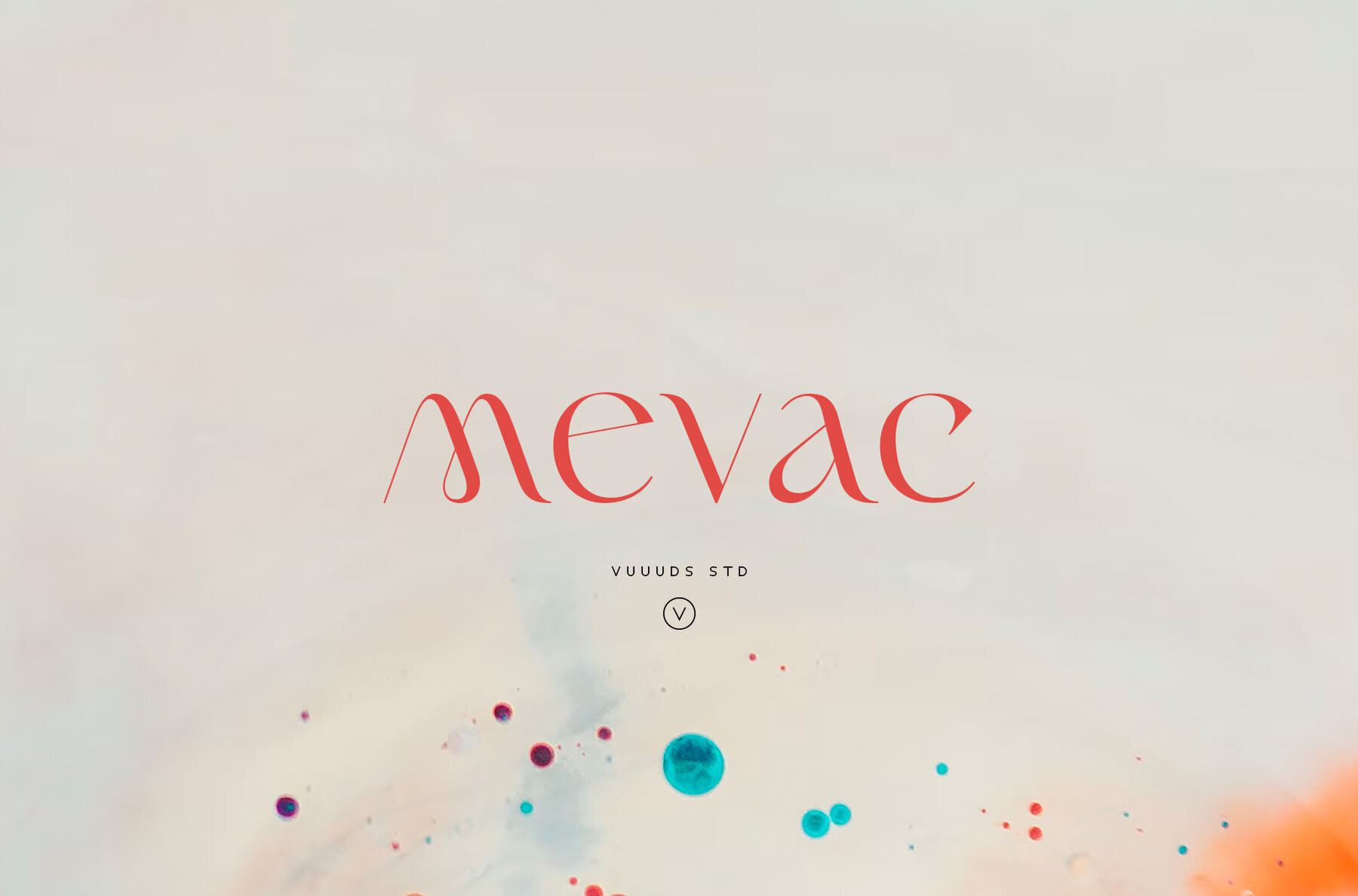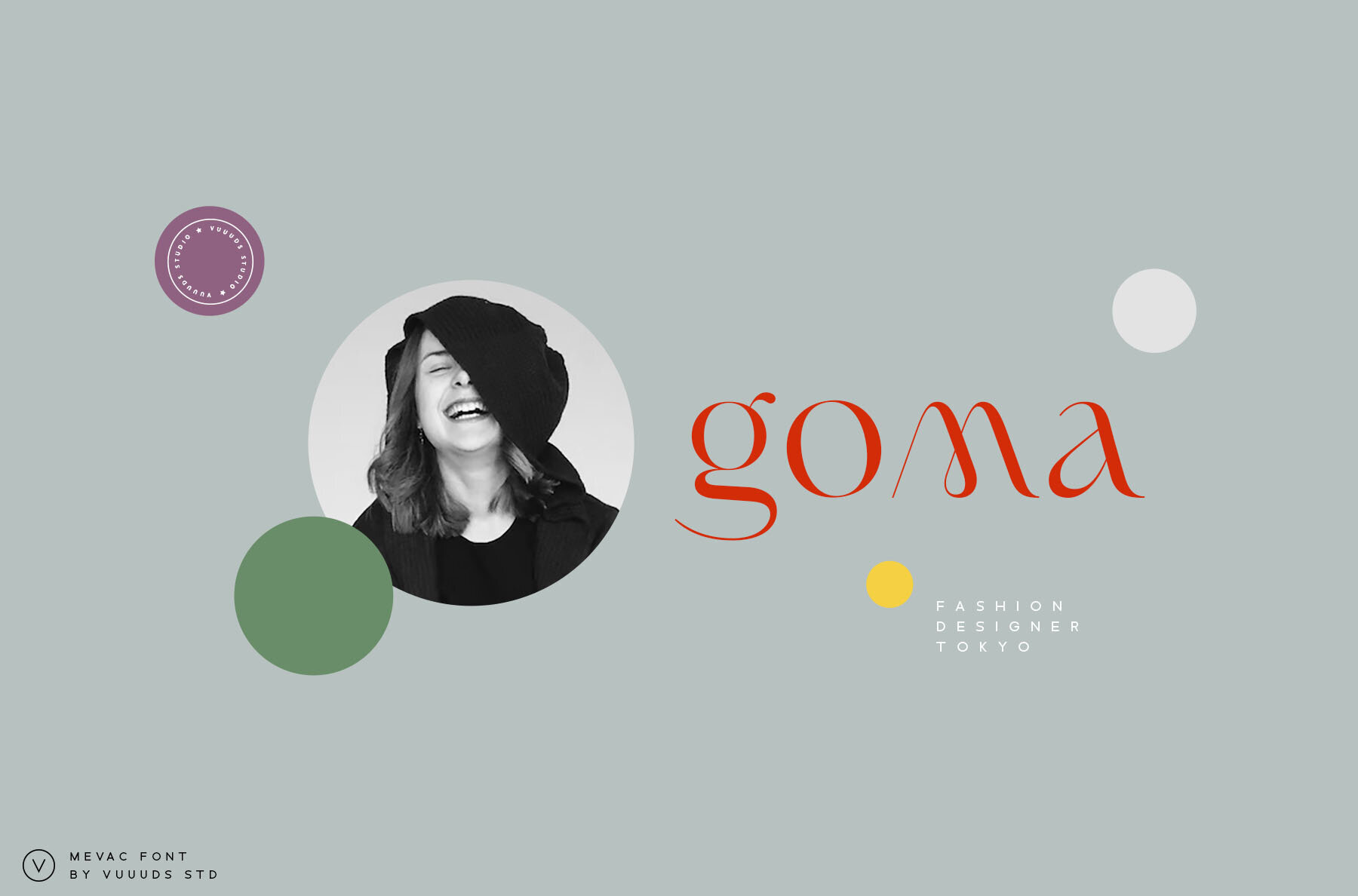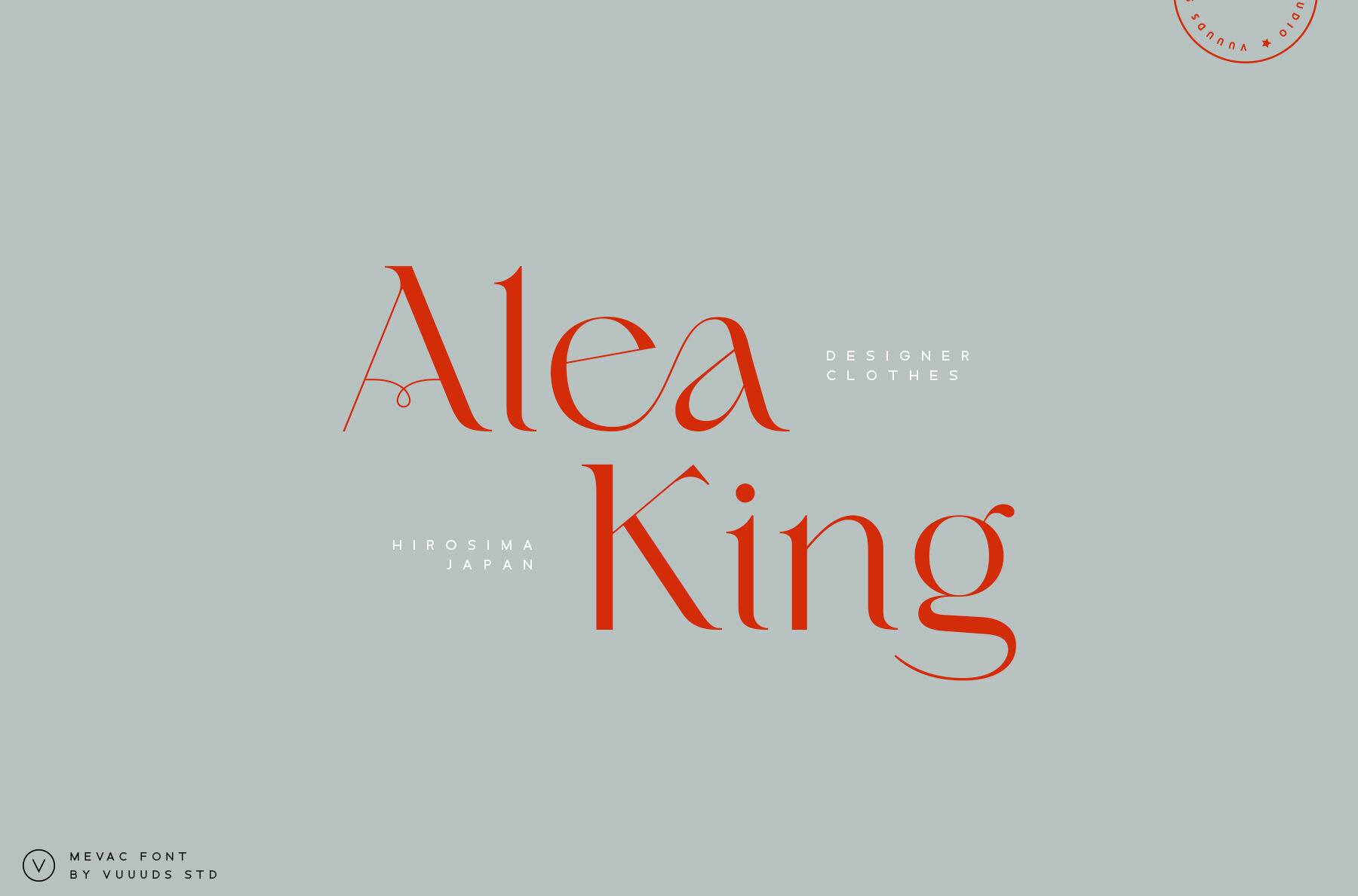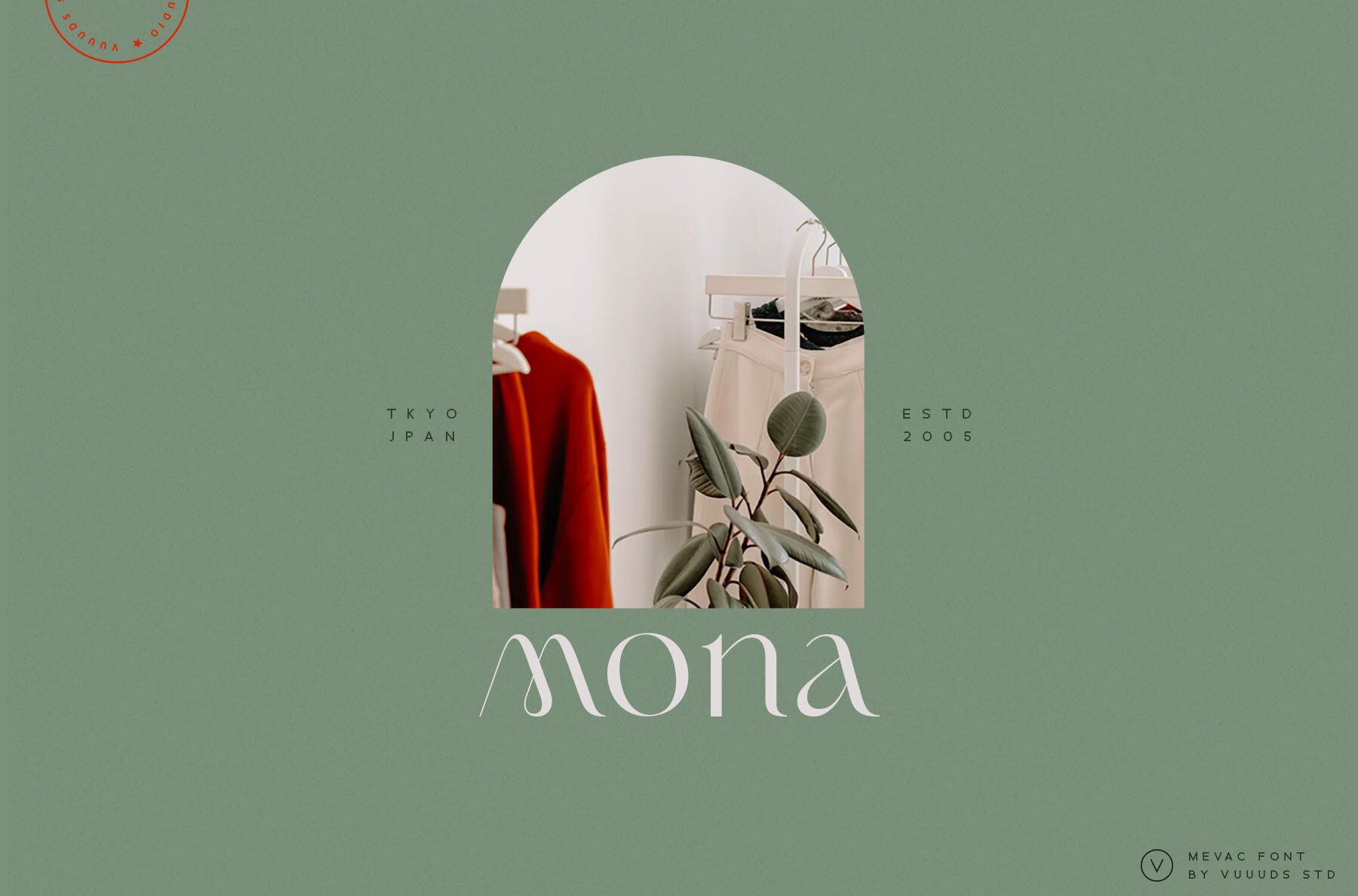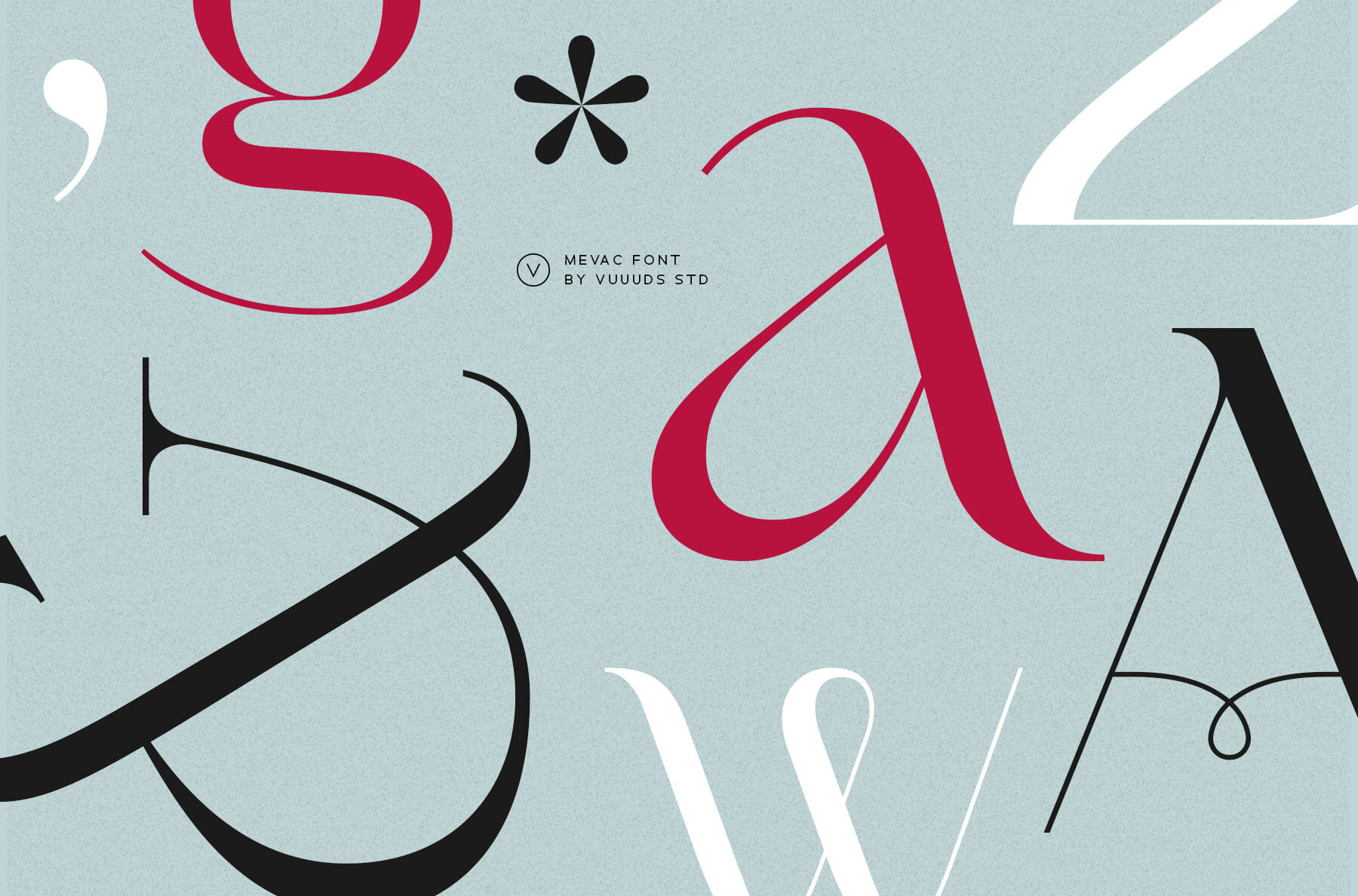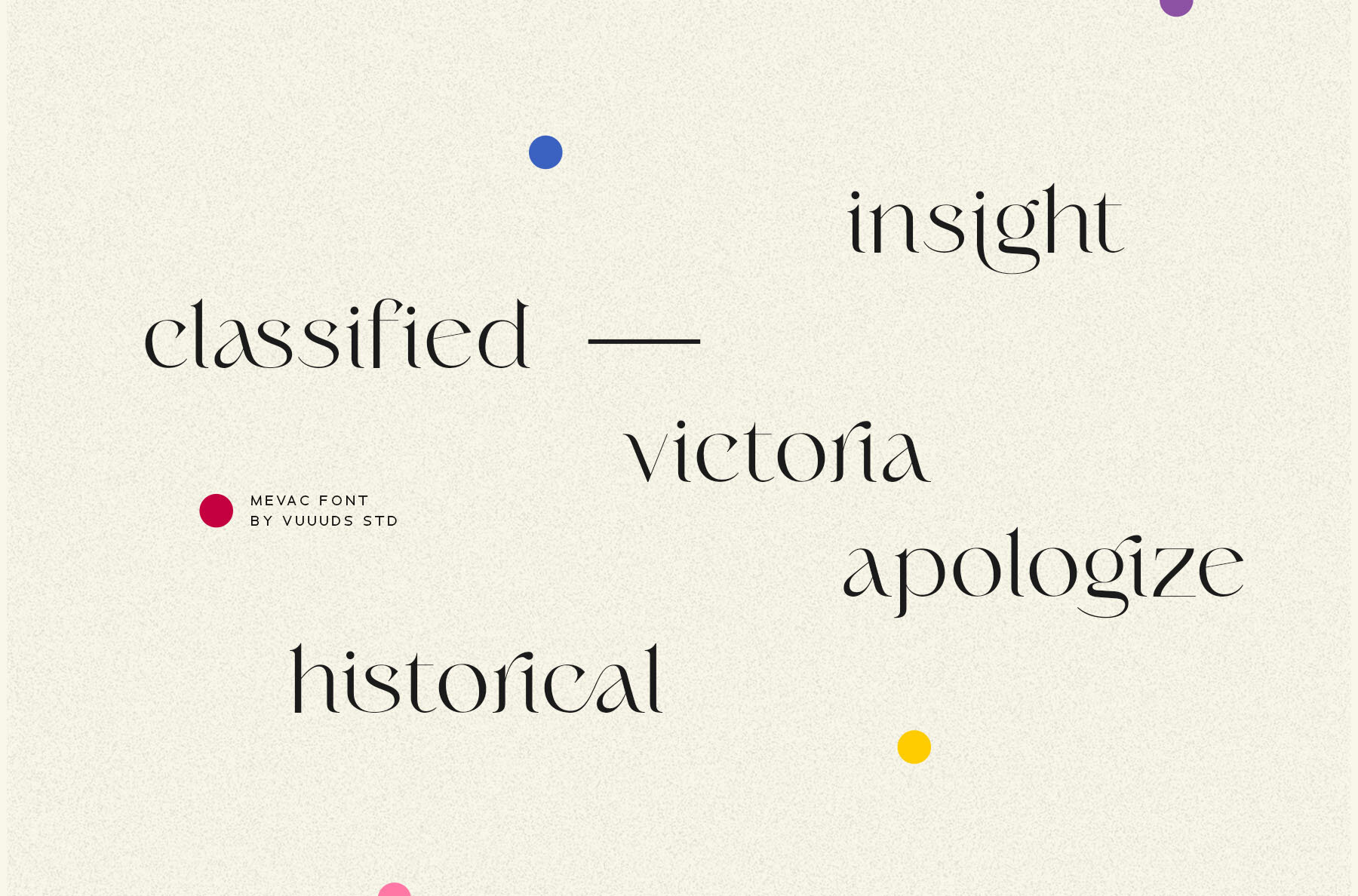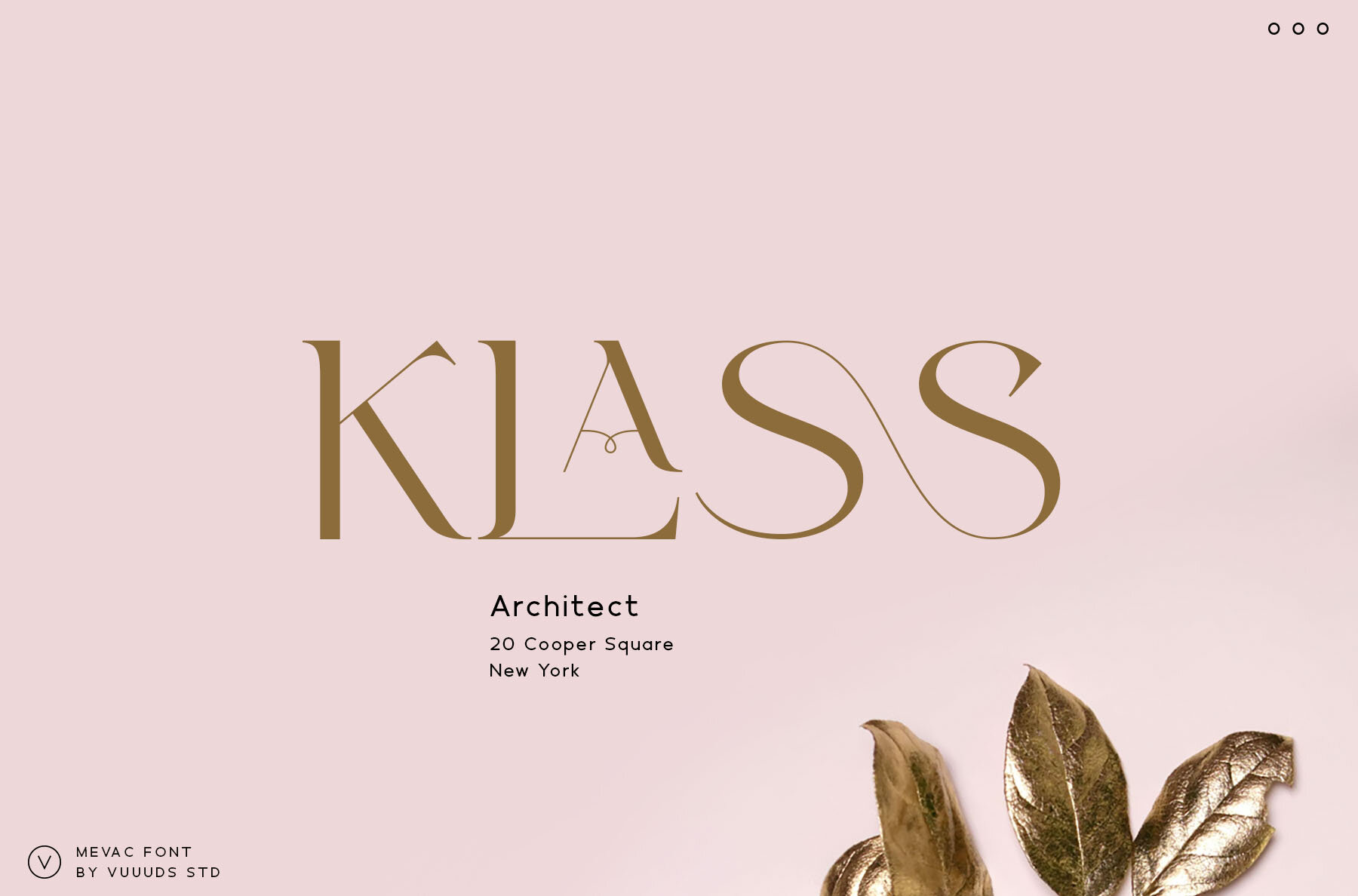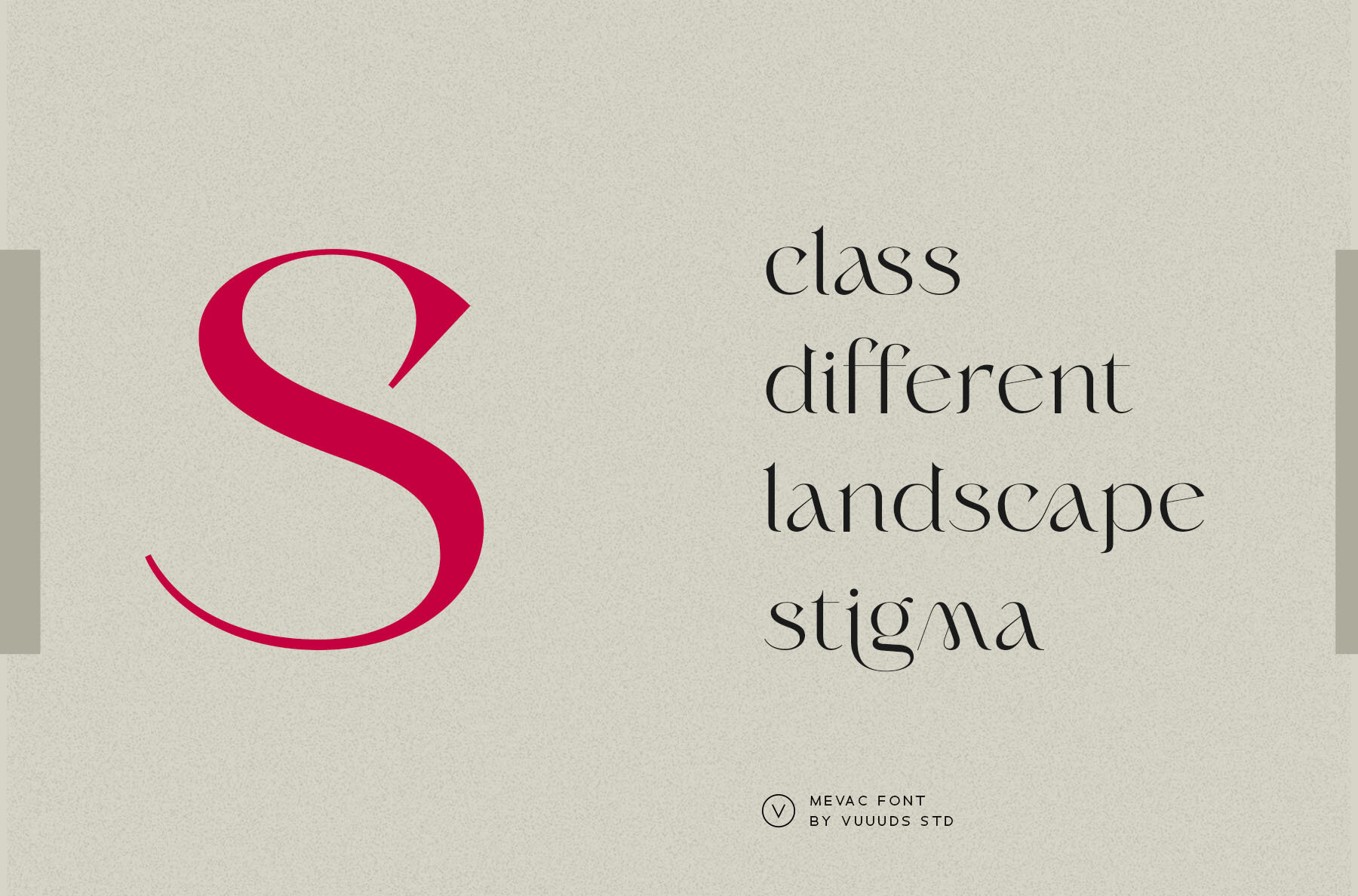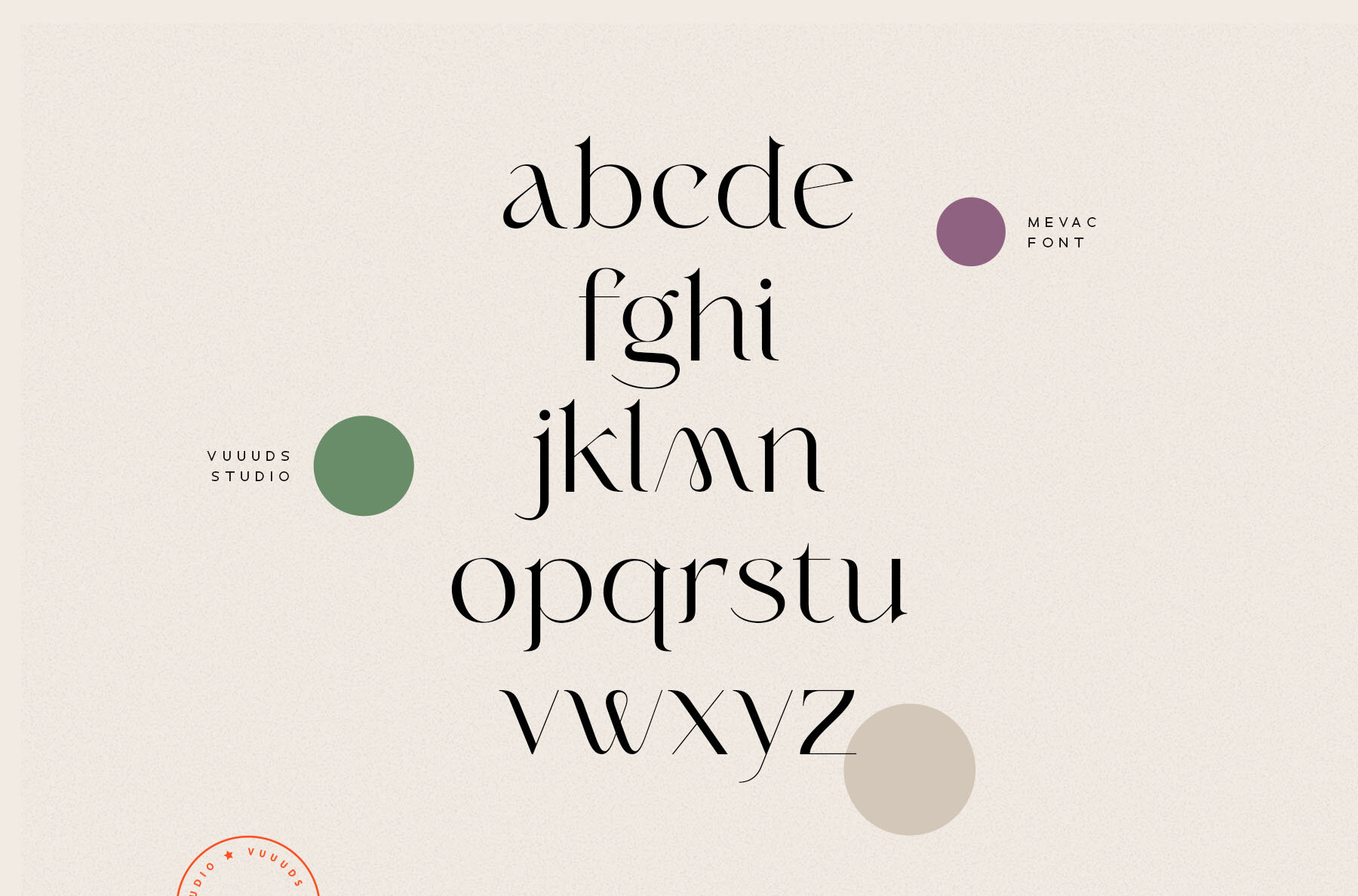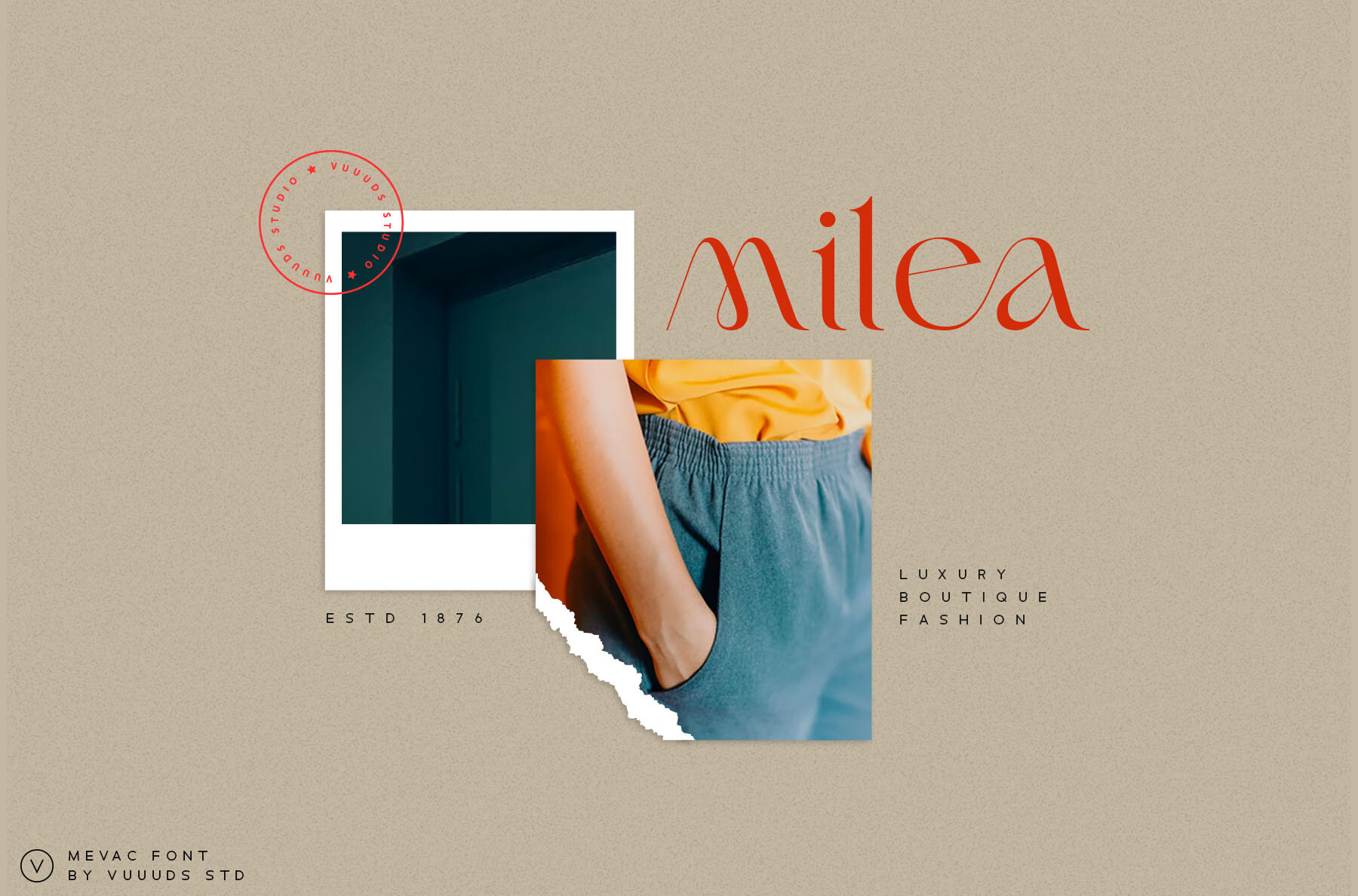
Mevac Font
Mevac Regular
Mevac is a contemporary serif font designed to make your text stand out with a unique flair. Its carefully crafted letters embody modern style and sophistication, ideal for various design projects. Mevac offers extensive foreign language support, including accented characters and symbols for a multitude of languages, ensuring versatility in global designs.Mevac: Elegant Modern Serif Font